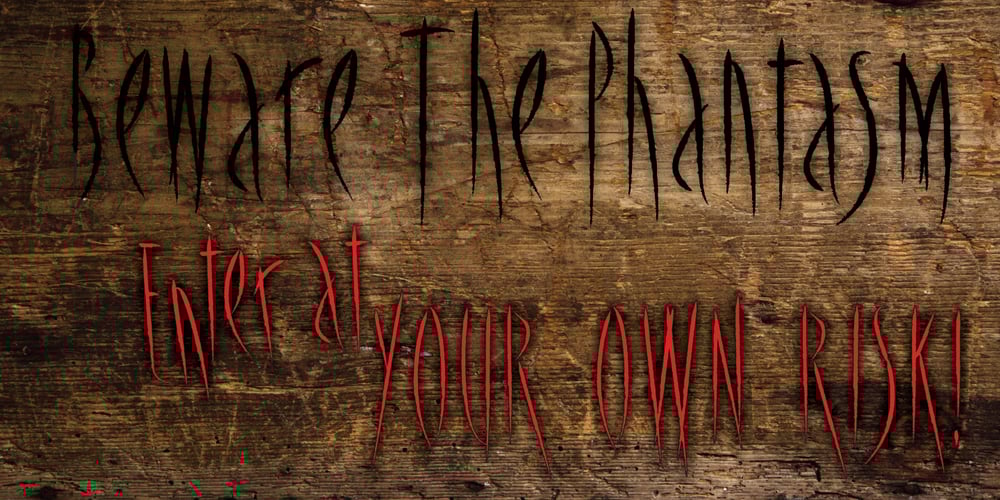
Phantasm Font Family was designed by Dawn Lewandowski and published by Partnrz. Phantasm contains 1 styles and family package options. Beware of the Phantasm! Just in time for Halloween, Phantasm is perfect for your creepiest projects. It has great legibility and boasts a much larger character set than most display fonts. It can look wispy and vaporous, or you can make it look like it has been scratched into a surface by hand. All letterforms use a minimum of strokes and the gentle curves reinforce the hand-etched look.